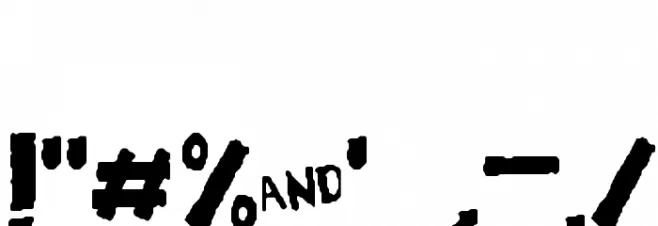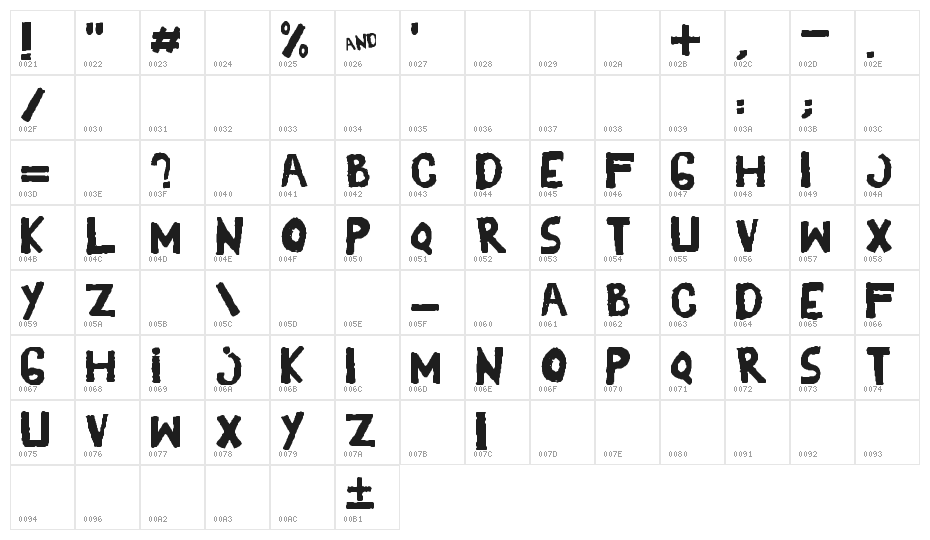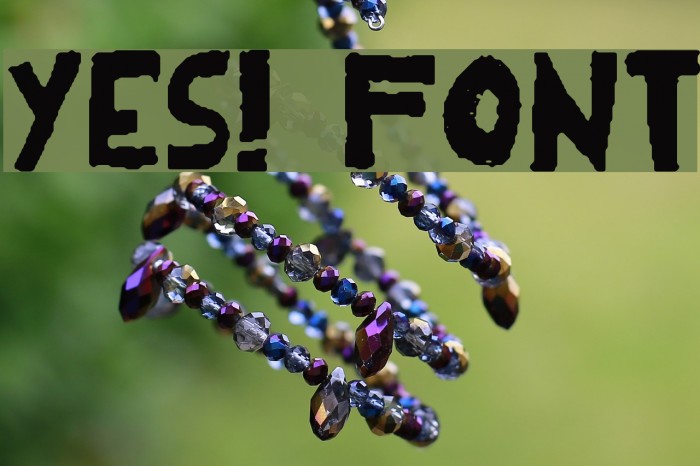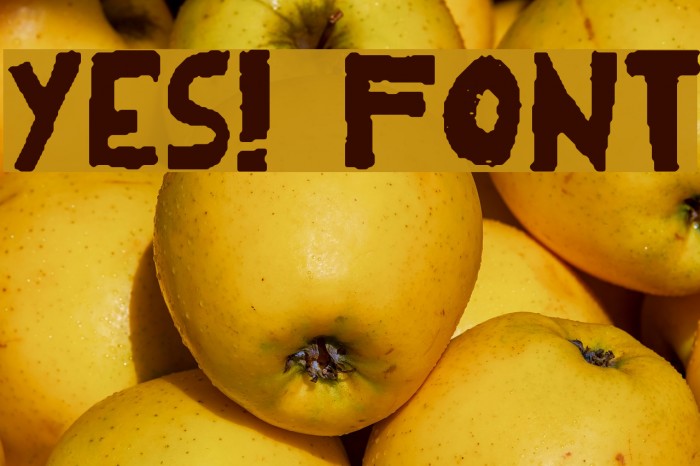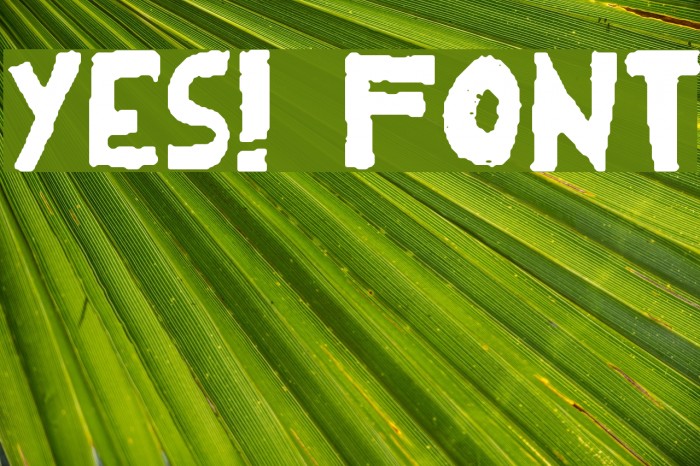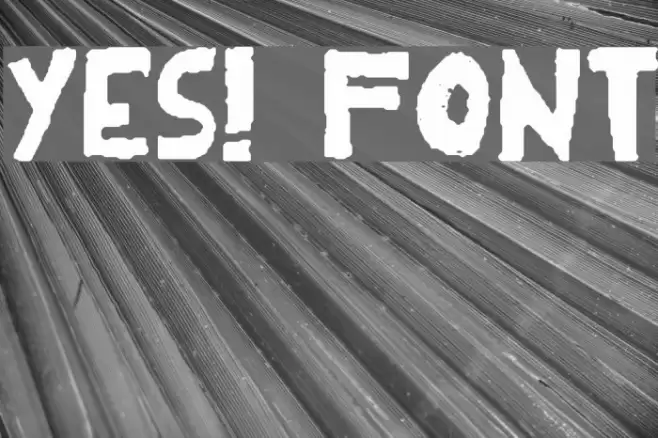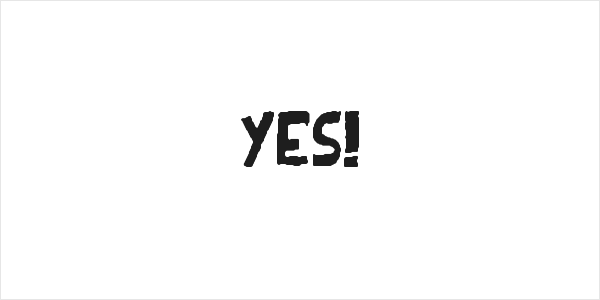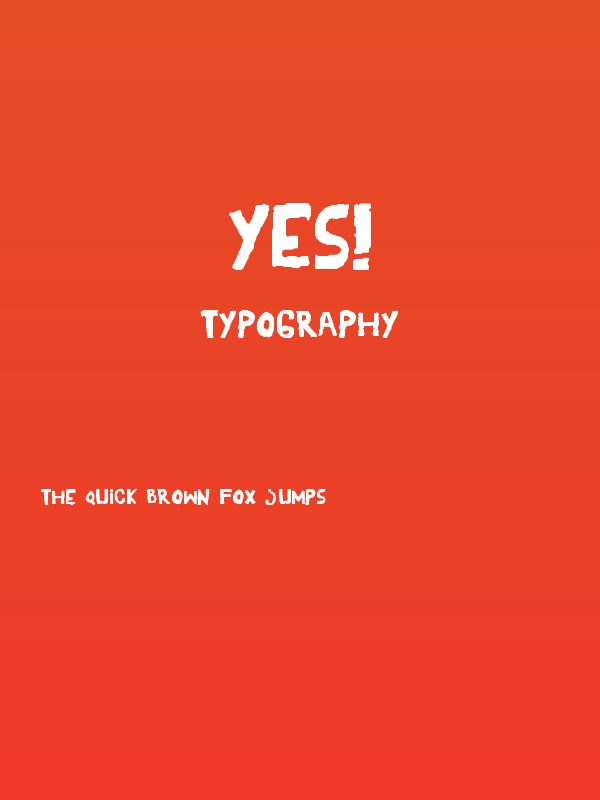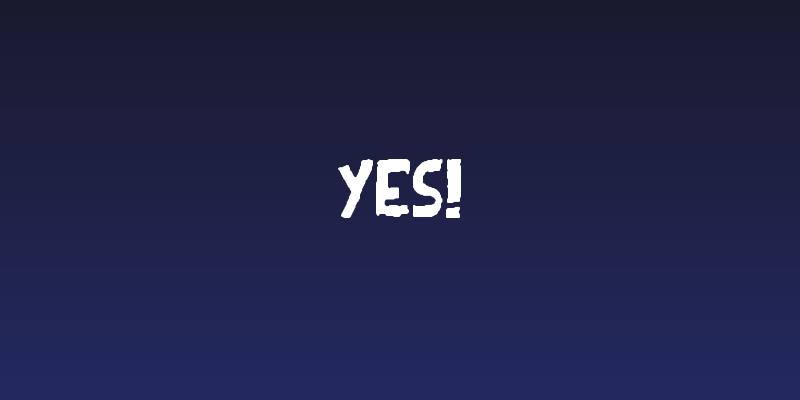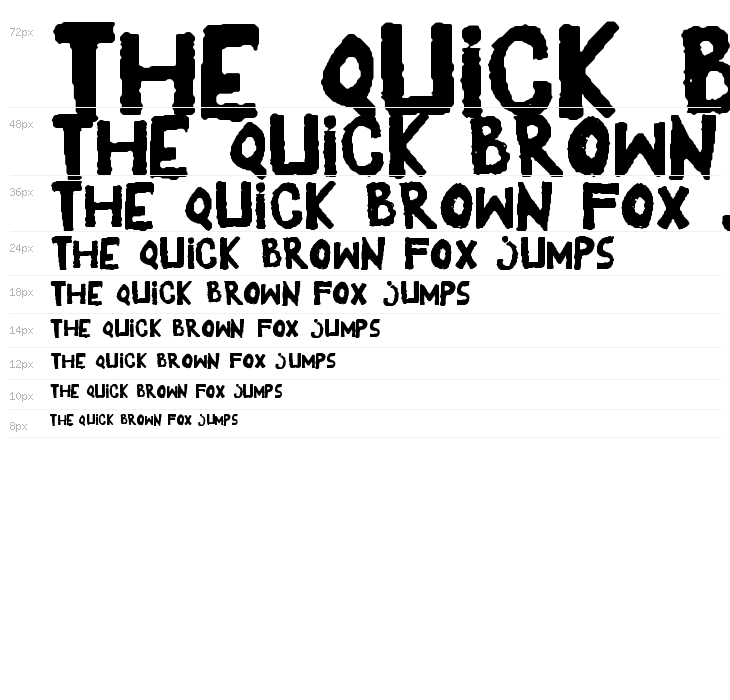
YES! Font
This font features a bold and rugged style, characterized by its uneven, hand-drawn appearance. The letters are thick and have a rough texture, giving them a unique, organic feel. The uppercase and lowercase letters maintain a consistent style, with slightly irregular edges that add to the font's charm. The numbers and special characters follow the same aesthetic, ensuring a cohesive look across all text elements. This font's distinct personality makes it stand out, offering a playful yet bold statement.
Proposed ProjectsIdeal for projects that require a bold, eye-catching design, such as posters, album covers, or branding materials for creative industries.